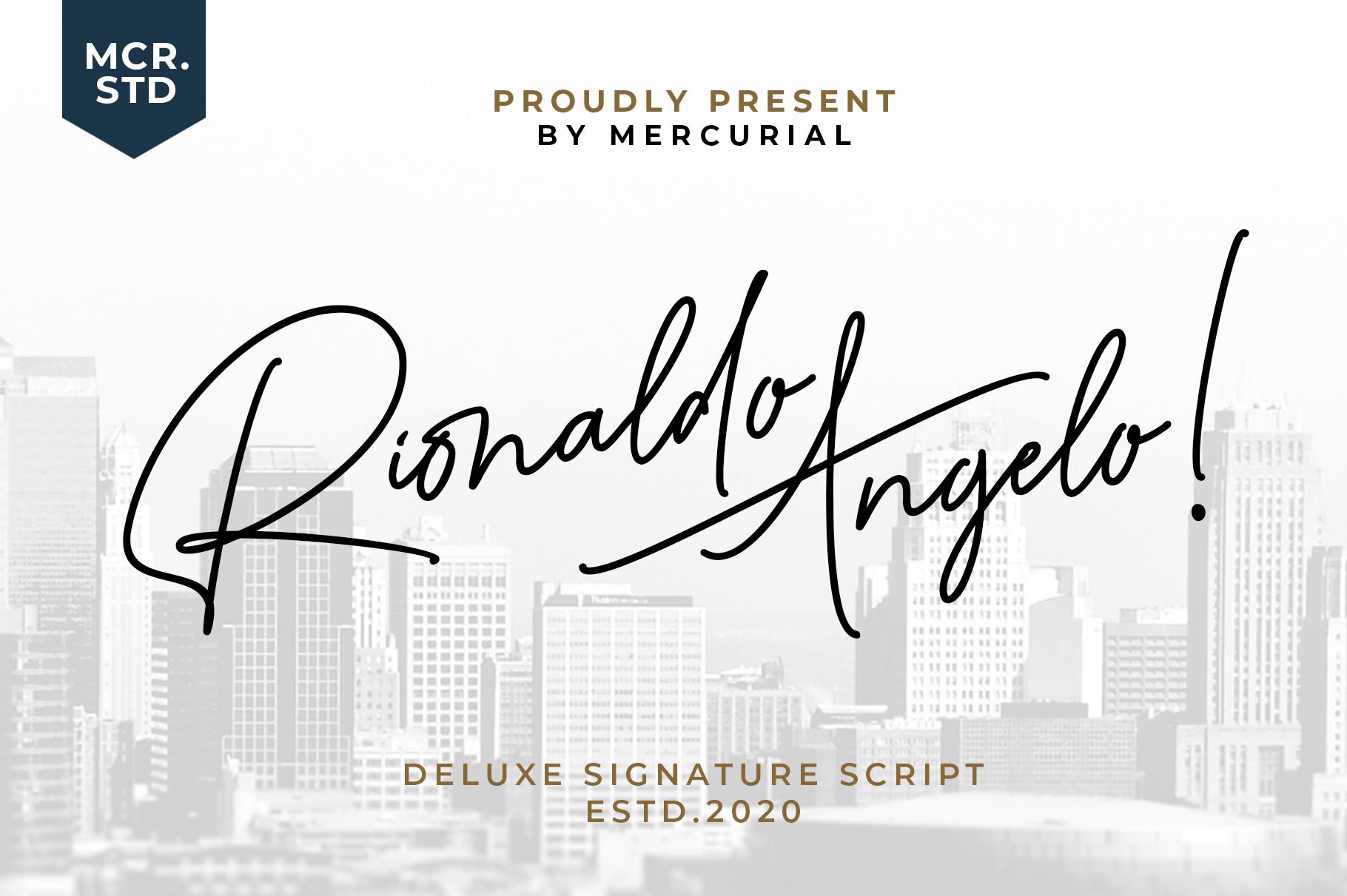
Rionaldo Angelo Font Description
Rionaldo Angelo simplifies elegance into one truly outstanding handwritten font. It maintains its classy calligraphic influences while feeling contemporary and fresh. This versatility will appeal to a wide range of crafty ideas, from letterheads and titles, to stationery.